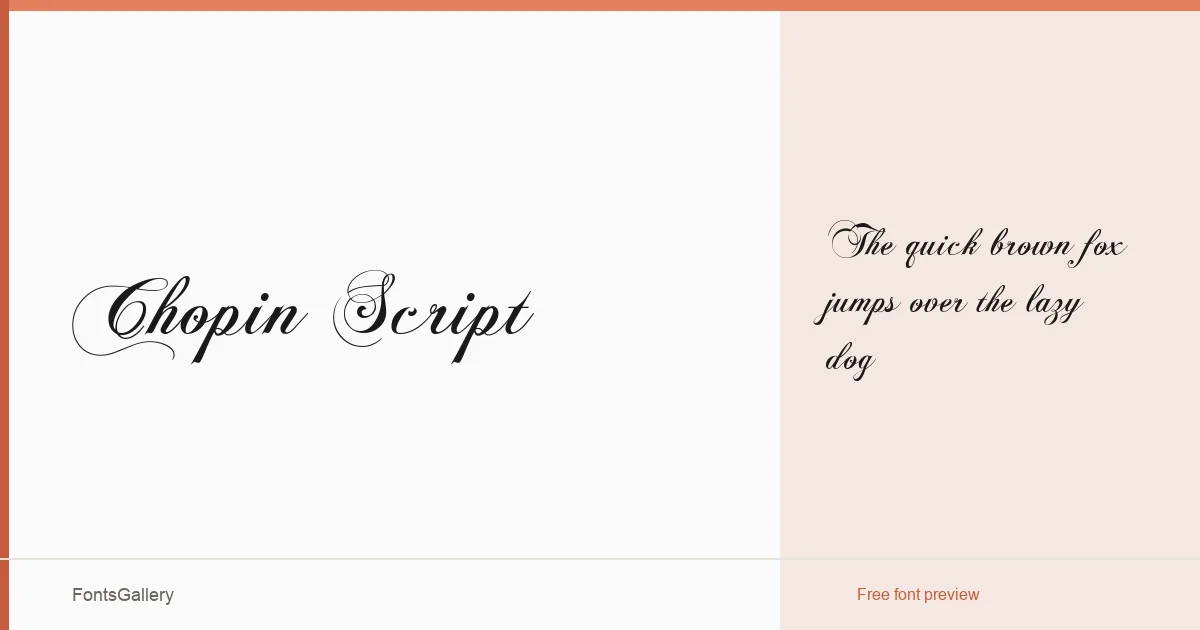
About Chopin Script Font
Chopin Script is an elegant script typeface that exudes romance, luxury, and timeless classical beauty. Its flowing letterforms make it an instantly recognizable choice for designs that demand sophistication and refinement. This typeface carries a graceful charm that resonates across a wide range of formal and decorative applications.
Chopin Script features sweeping, fluid strokes that embody the elegance and romanticism its mood suggests, drawing inspiration from the rich tradition of classic calligraphic penmanship. Each letterform transitions naturally into the next, creating a seamless, luxurious rhythm throughout any body of text. The carefully crafted curves and flourishes give it a distinctly formal yet warmly inviting character.
Chopin Script is ideally suited for wedding stationery, invitation cards, greeting cards, certificates, and logo design where an air of elegance and romance is essential. Its classic luxury aesthetic also makes it a standout choice for branding projects that require a refined, upscale feel. For a balanced and versatile pairing, consider combining Chopin Script with Aresink or the clean, modern lines of Helvetica to create a compelling contrast between ornate and minimal.